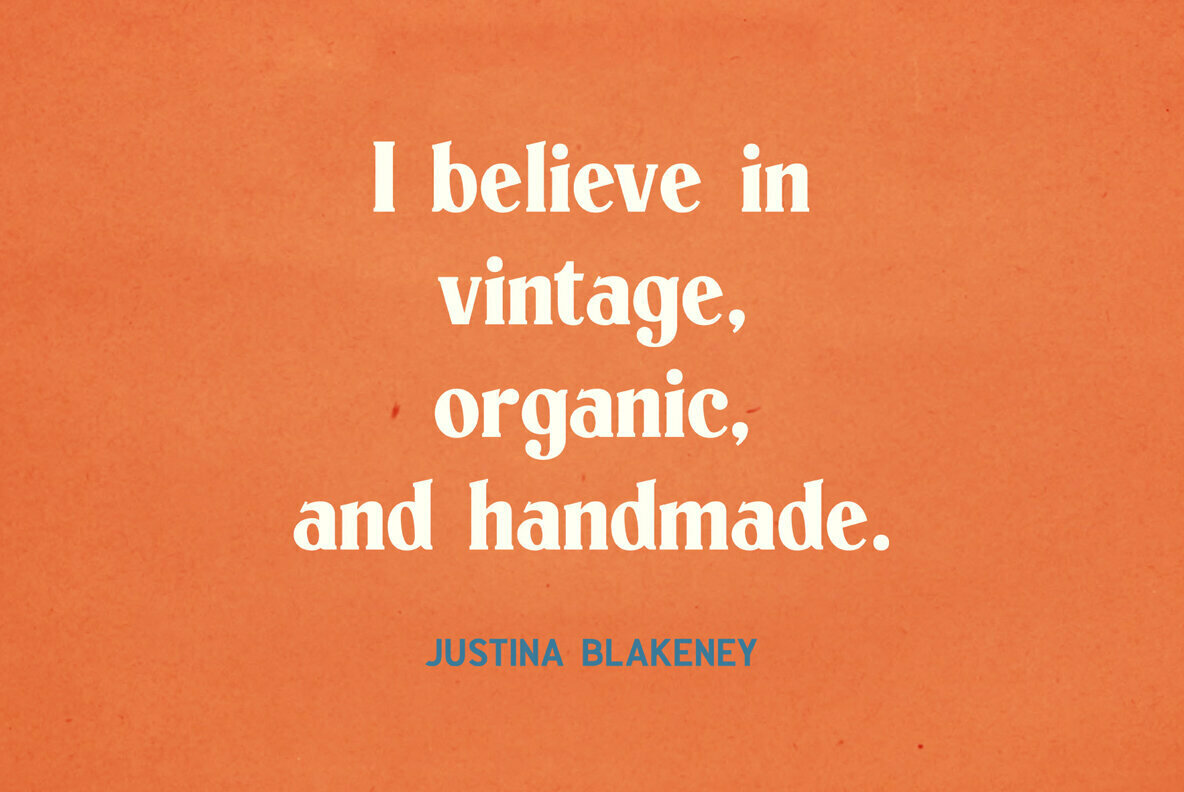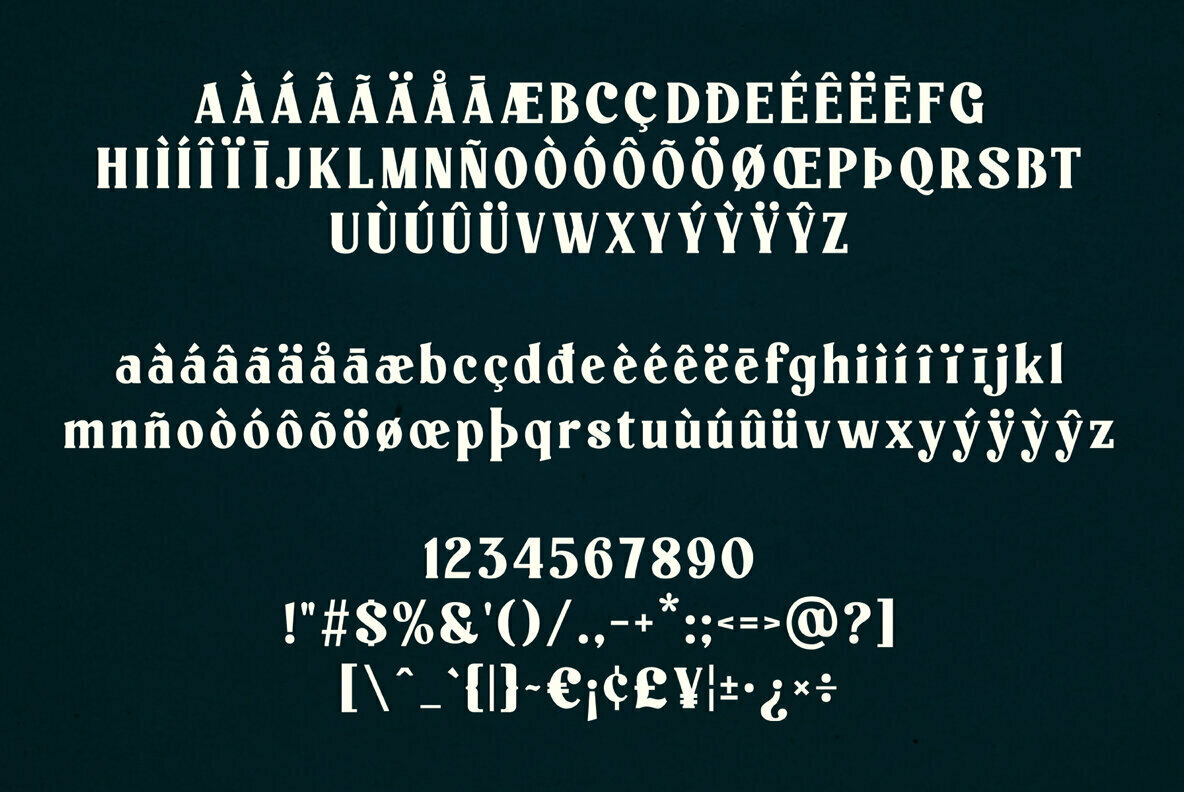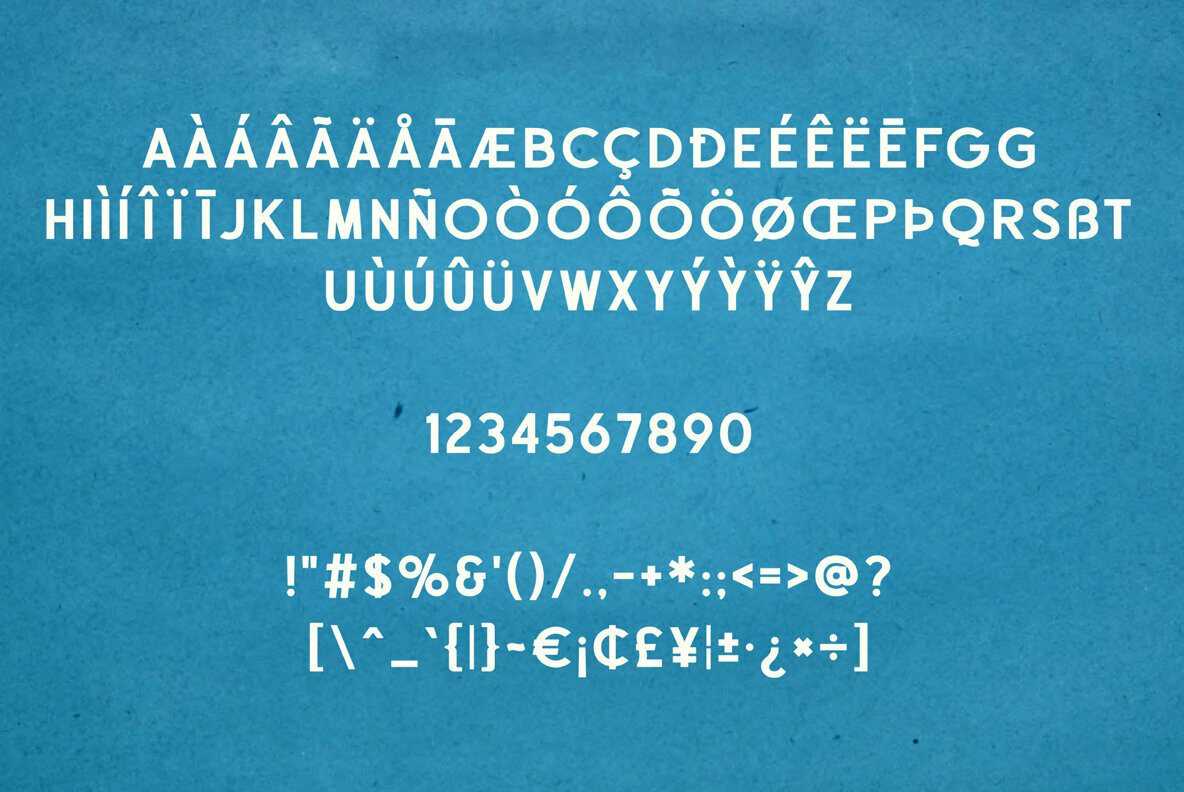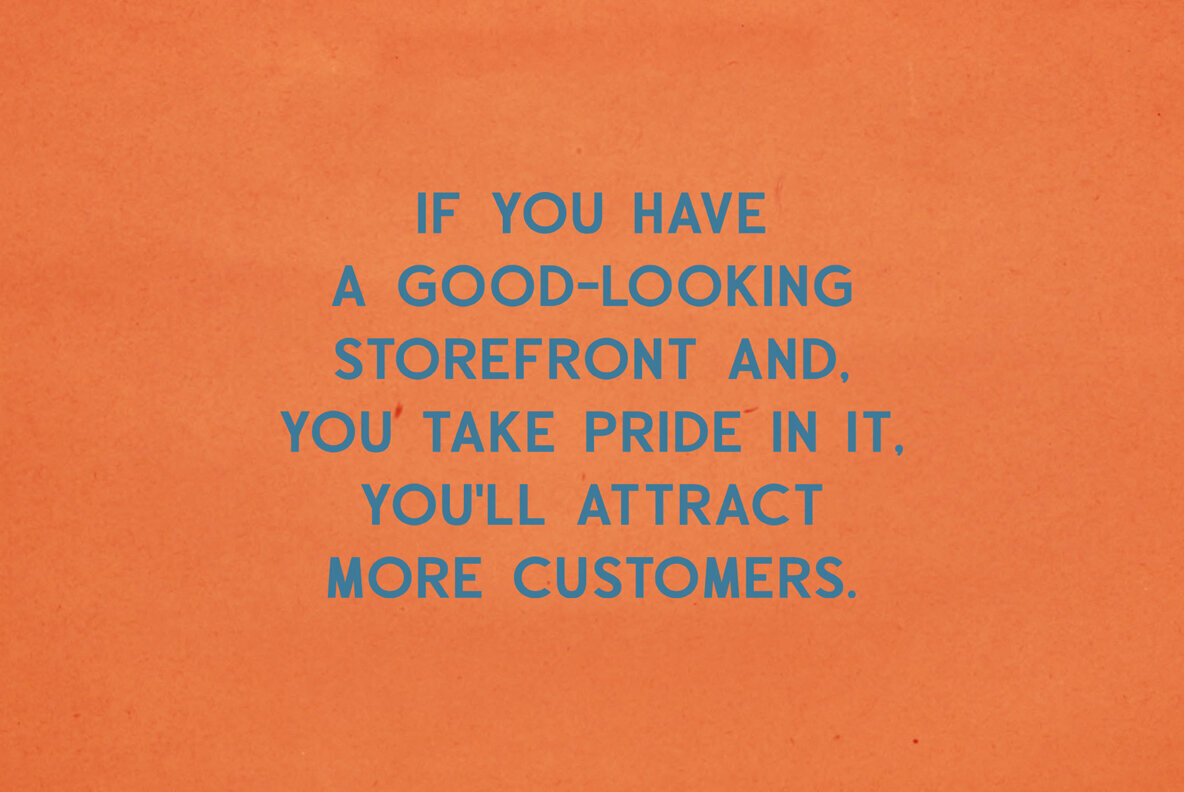
Paschal Dumont Font Duo
Paschal Regular
Paschal Regular Italic
Dumont Sans
Dumont Sans Italic
Paschal is a modern font inspired by classic serifs. Dumont is a clean, modern sans display typeface. A pair of these fonts are great for logo design, titling and headers, branding, posters and more.